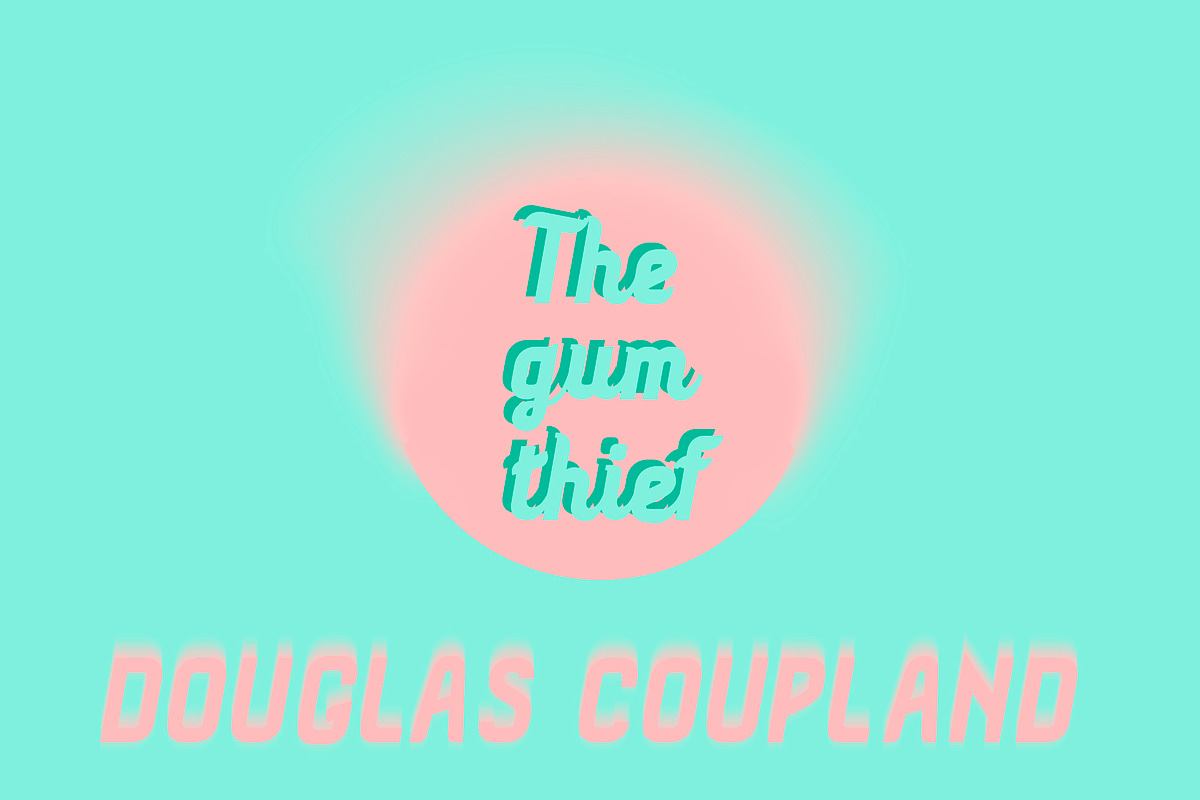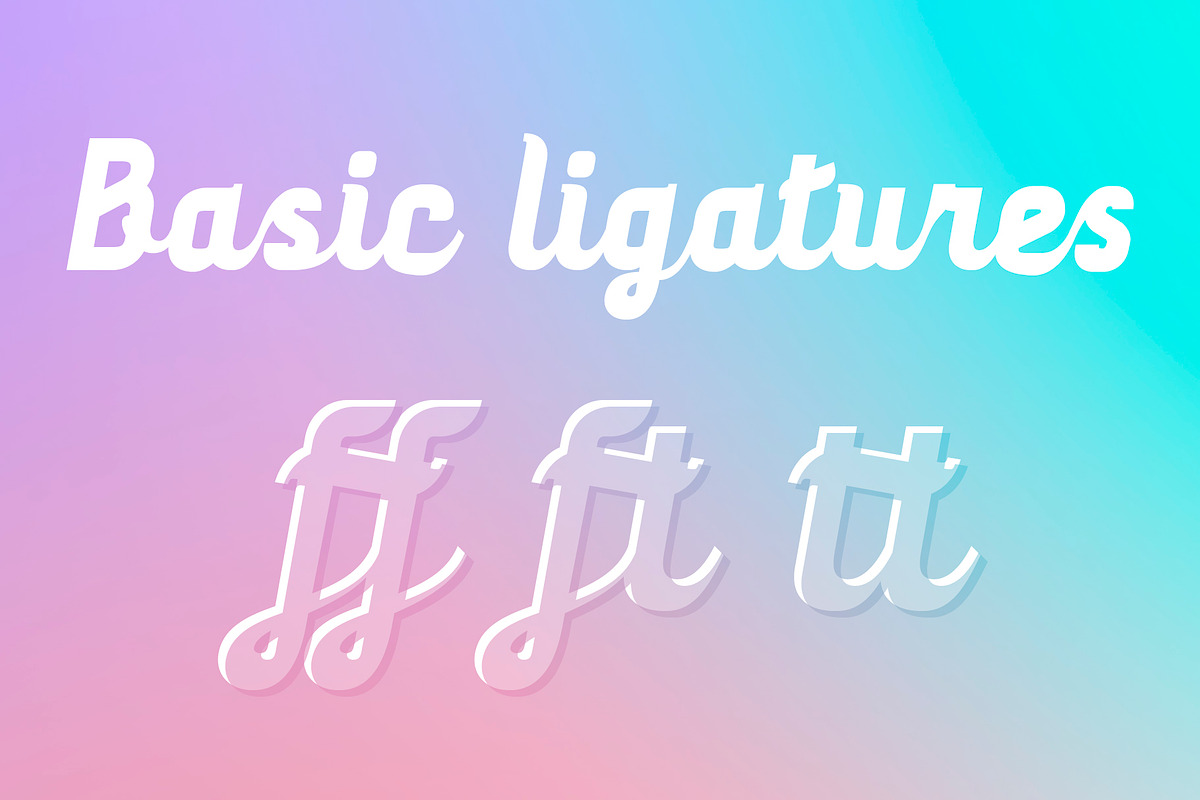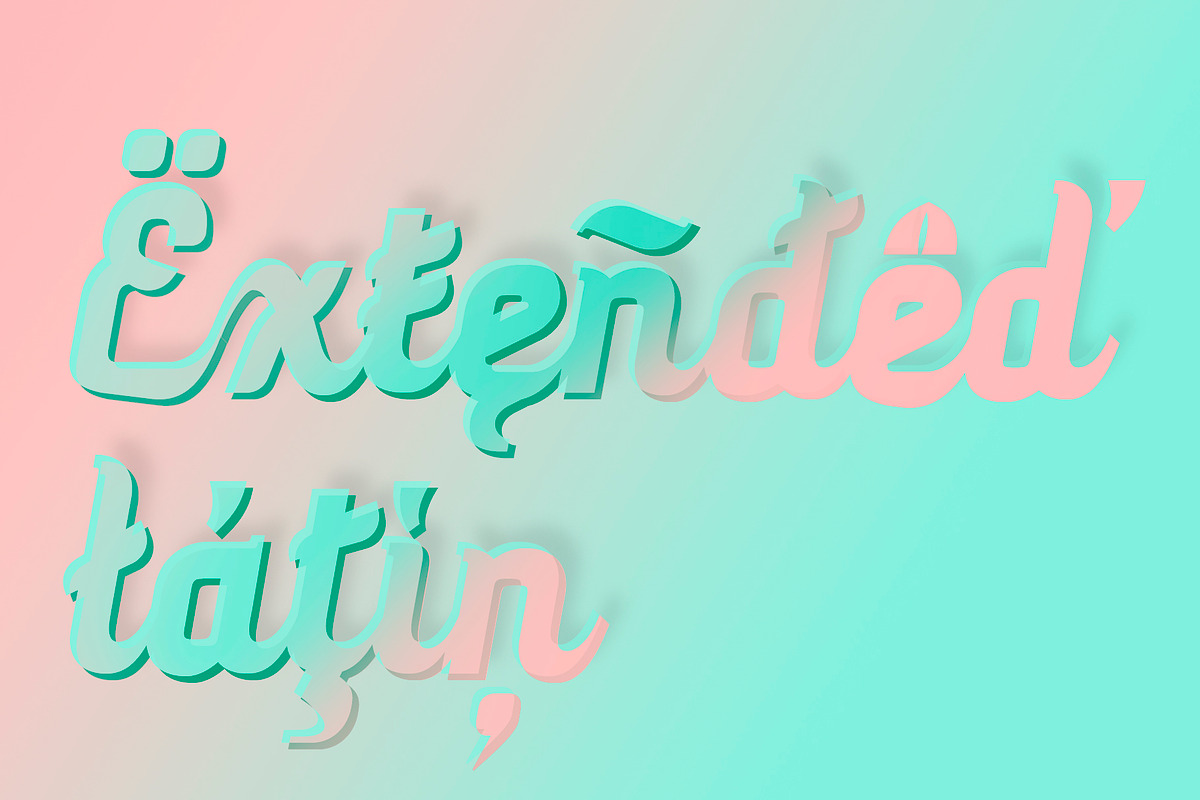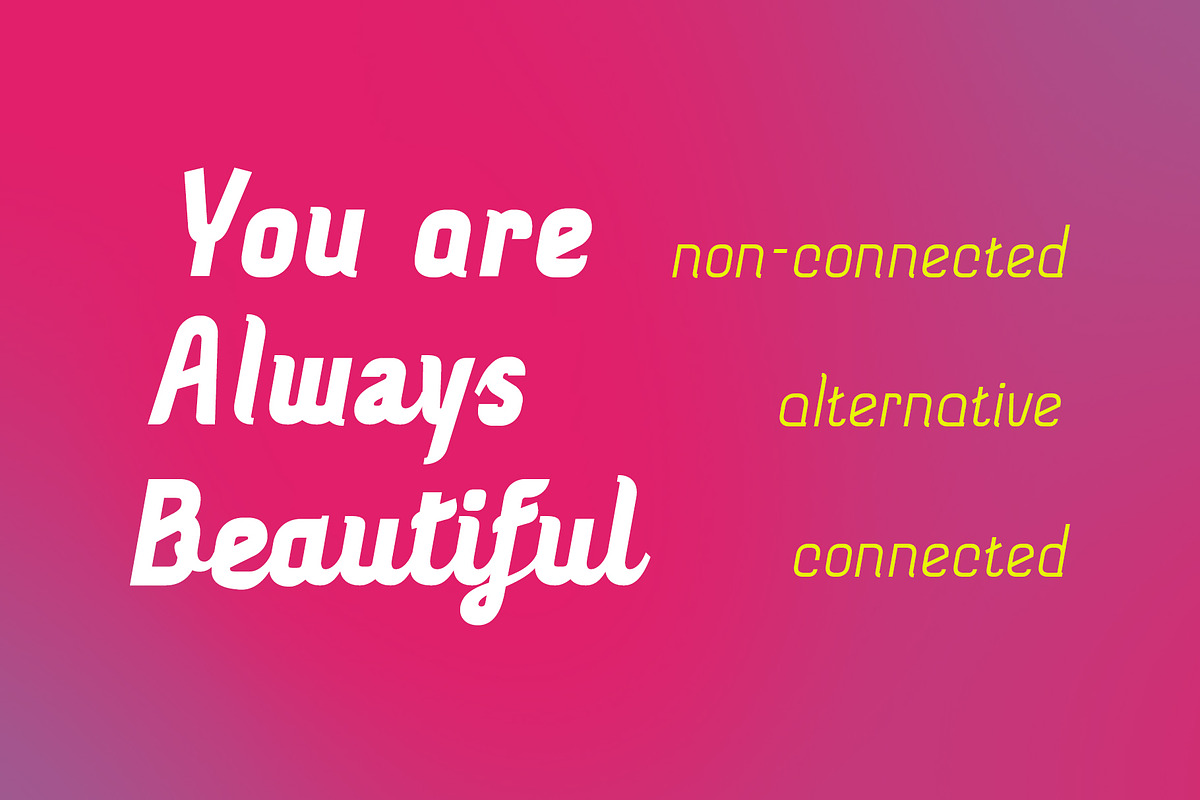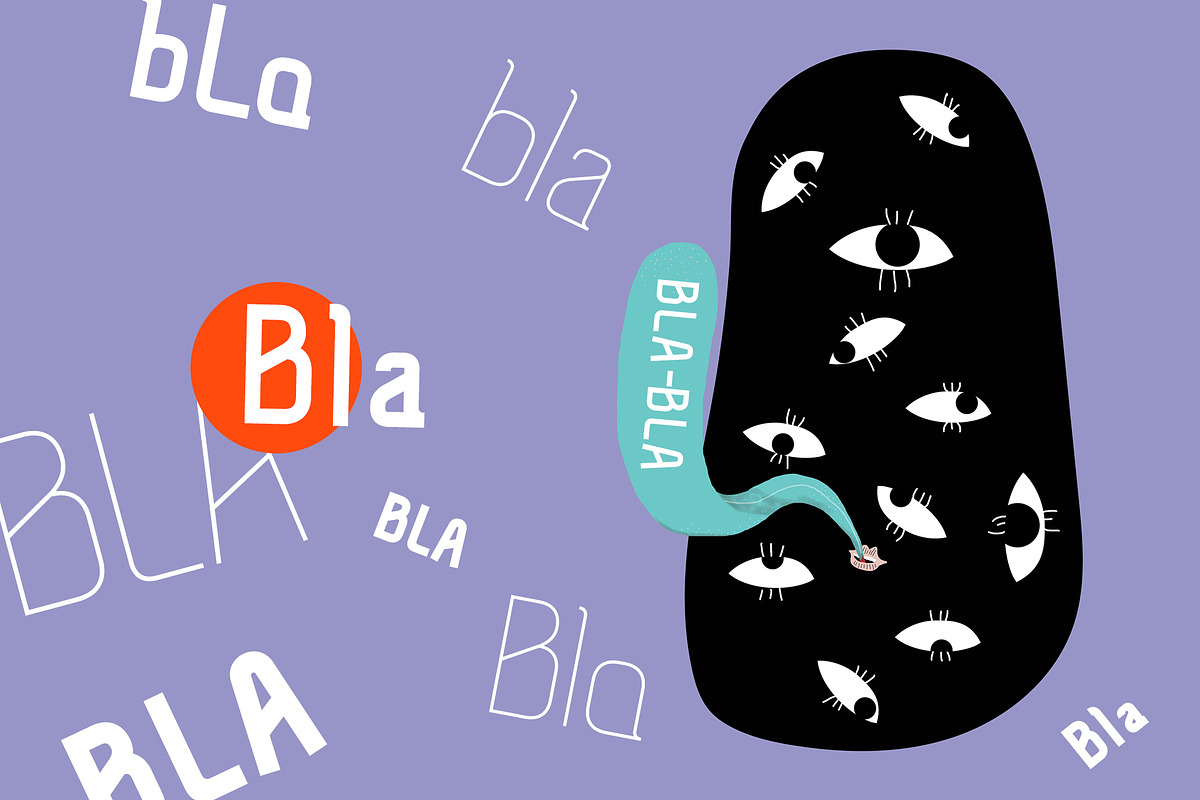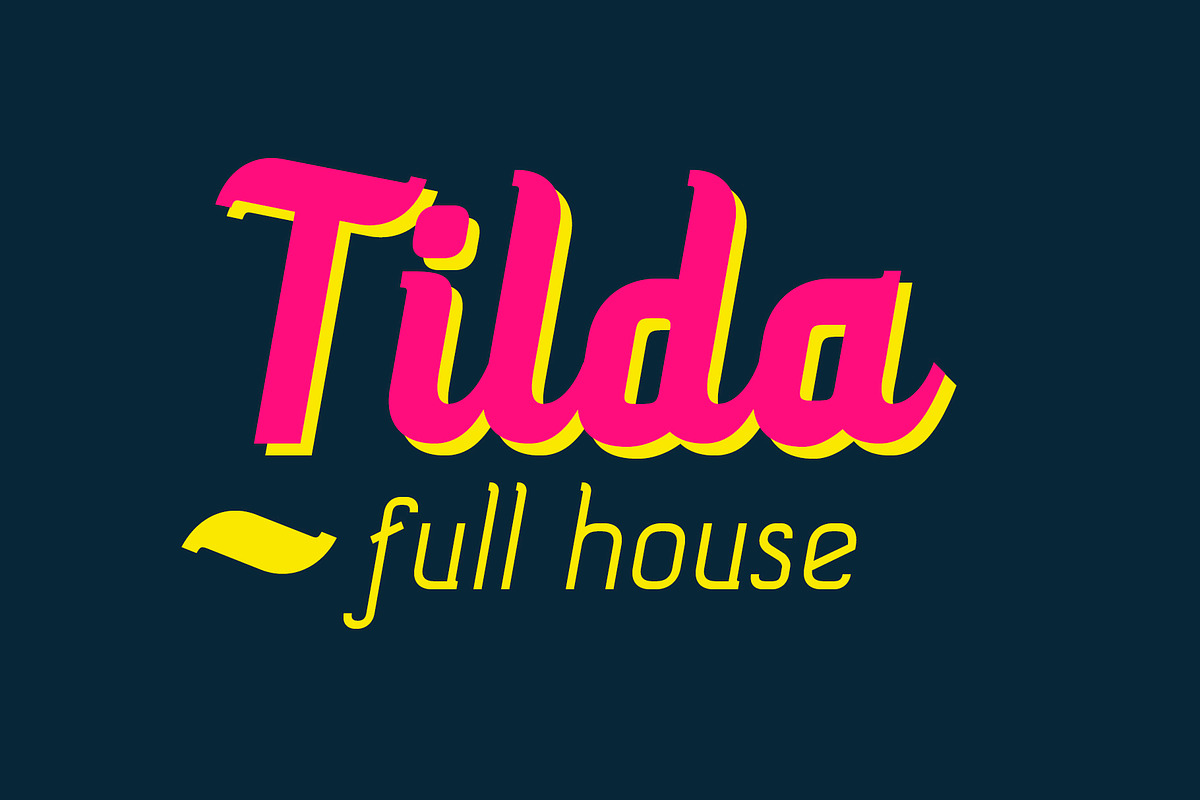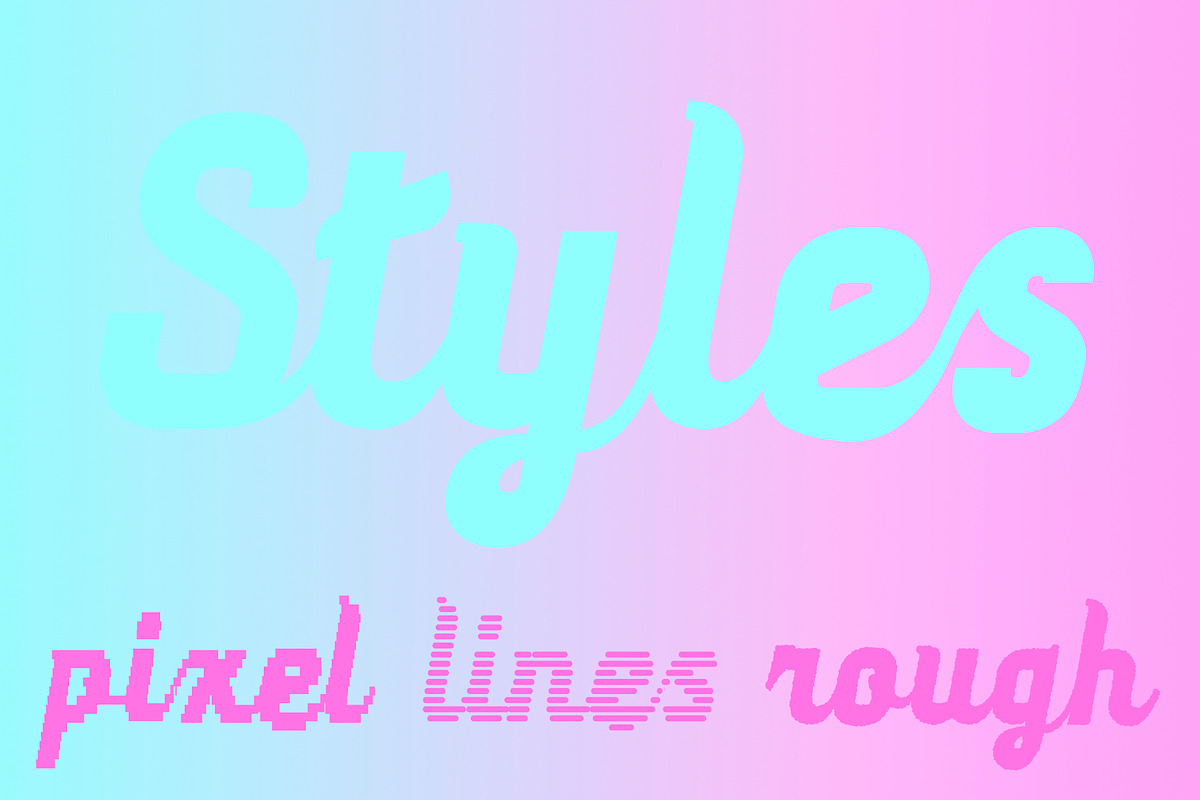
TILDA full house
You're lucky to meet Tilda full house. 35 fonts of Tilda family are in one big pack.
Tilda is sans serif typeface with big potential. It's gonna be your daily font, because it perfectly fits to different tasks. Tilda is good as long text but also cool as eye-catch title. This font can be like human ages: childhood, adolescence, youth, adulthood and maturity: stylish THIN, great LIGHT, fancy REGULAR, golden BOLD, brilliant HEAVY.
Tilda Italics are represented in all styles from thin to heave. So it's good to combine them with common Tilda fonts in formal text.
Tilda Rough has regular, italic and script styles in all varieties. It repeats symbols with proper threshold. Rough styles are good for displays or backgrounds.
Tilda Pixels is a 90's spirit in bold stiles of regular, italic and script fonts. Attention please, these styles are only for users with a great sense of humor! So please laid back and have fun.
Tilda Lines Rounded is represented only in heavy font styles. It's variety of stencil font with a display opportunity. That may be used as a title or extra style in addition of foreground.
Ma Tilda is connected script based on sans serif. It has alternates for each symbol of basic latin so you can chose between connected and non-connected. The typeface supports all european languages and has special characters like french Œ, Æ, Î, È, german Ü, Ö, Ä, ß, spanish Ñ, Ç, Ó, scandinavian Ø, Å, Ð and many other. MaTilda is a new "Lobster" it perfectly fits for signing cards, writing titles or typing a message in a funny way! More of all it has magic karma for increasing your sales, be it candies or perfume. Just check out how looks your phrase or name typing it in a window bellow.